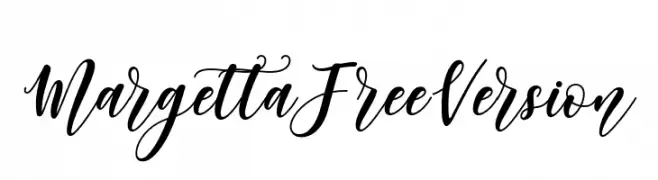
An elegant and flowing script font with ornate uppercase and smooth lowercase letters.
An elegant, flowing script font with a sophisticated cursive style.
A fluid, cursive script font with elegant, connected characters and an italic style.